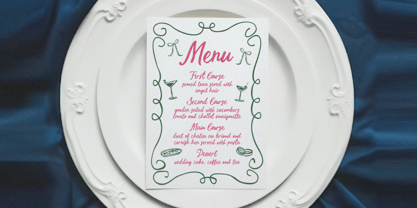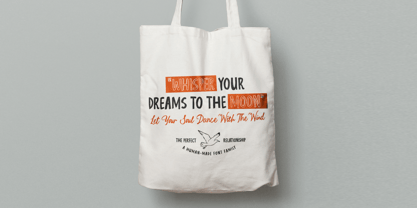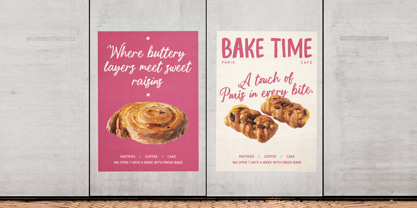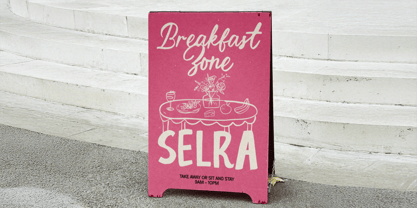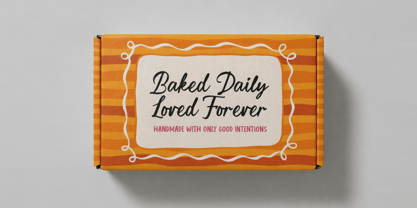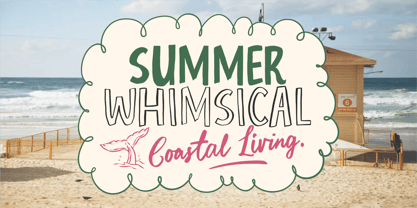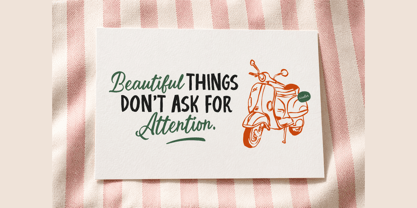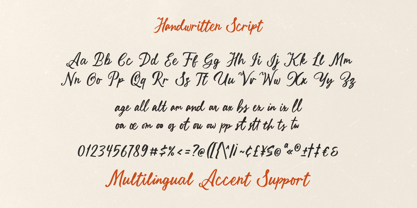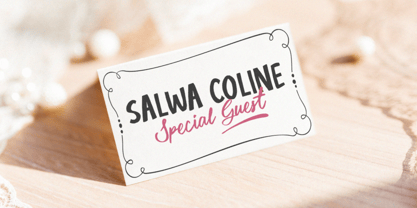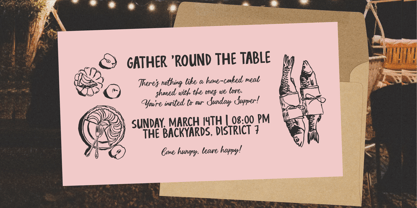
Perfect Relationship
by Agny Hasya Studio
The Perfect Relationship Font Family was designed by Firman Maulana and published by Agny Hasya Studio. Perfect Relationship contains 3 styles and family package options. More about this family
Looking for a font that feels warm, personal, and effortlessly charming? Perfect Relationship is a delightful handwritten font duo designed to bring a natural, playful touch to your designs. This font combines a smooth handwritten script with a clean yet quirky sans serif, plus an outline version to give you extra creative flexibility. The imperfect strokes and organic shapes create a truly human-made feel, perfect for modern lifestyle branding. Whether you're designing for: - wedding invitations - café menus - bakery packaging - social media quotes - lifestyle branding - feminine design This font adapts beautifully across styles. With its versatile font pairing, you can easily mix and match: - elegant script for headlines - bold sans for readability - outline style for playful accents The result? A cohesive, eye-catching design system that feels both professional and personal. Add Perfect Relationship to your collection today and start creating designs that feel warm, authentic, and full of personality. Perfect for designers, creators, and brands who want to stand out with a handcrafted touch. Thanks for stopping by. Questions, ideas, or feedback are always welcome. Feel free to reach out anytime. Warm regards, agnyhasyastudio